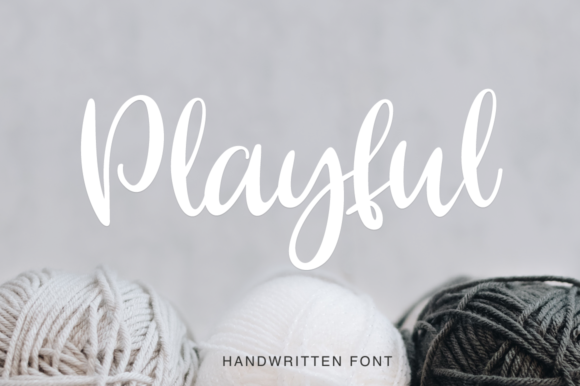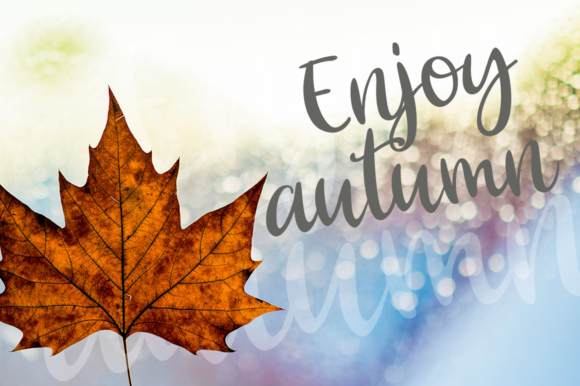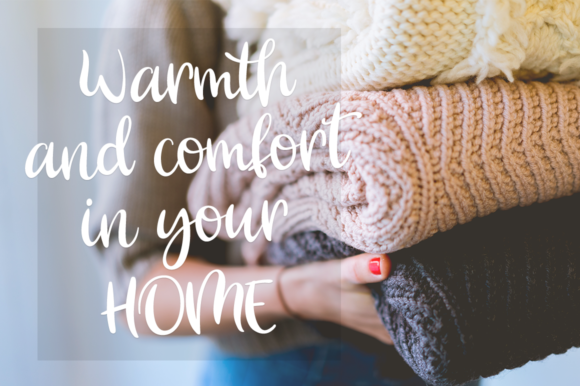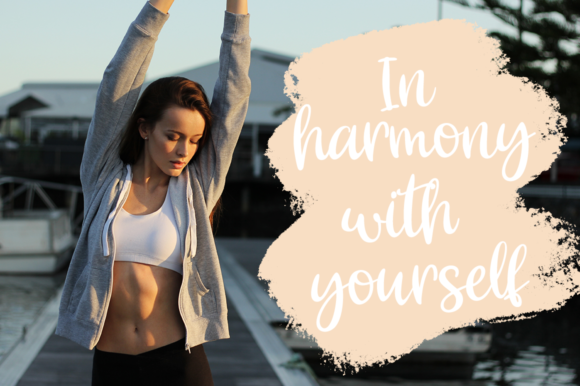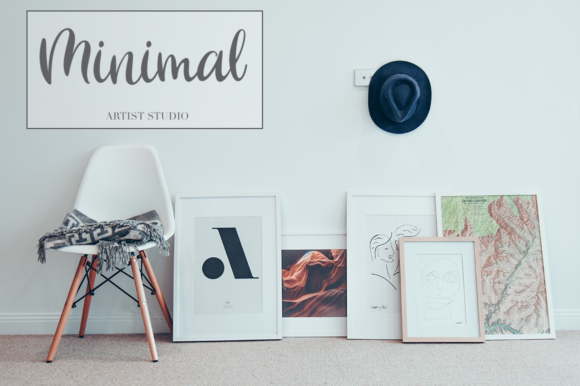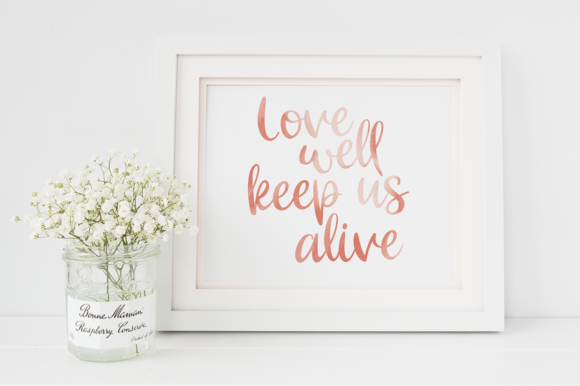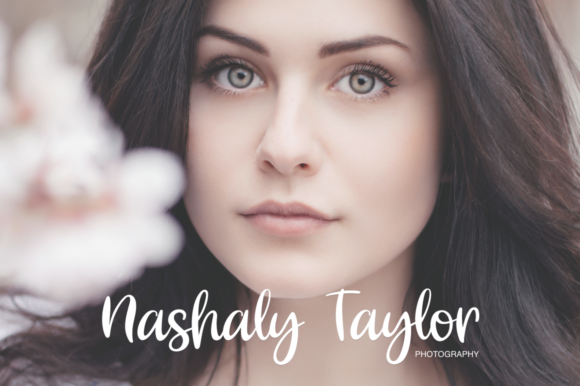
HomeScript FontsPlayful Font Script Fonts Playful Font FacebookXPinterestWhatsApp Playful Font Poster 2 Playful Font Poster 3 Playful Font Poster 4 Playful Font Poster 5 Playful Font Poster 6 Playful Font Poster 7 About Playful Font The Playful is a new, fresh, handmade font. It’s ideal for branding and decorating your projects. DOWNLOAD NOW People also explored Abdebaja Font Evil Witch Font Qulizer Font Bravest Font Corbeau Pro Purefly Font Snowy Font Ballada Font Neonllimitted Font 259 0 TagsPlayful Font Previous articleBridgetown FontNext articleLilypaly Font LEAVE A REPLY Cancel reply Comment: Please enter your comment! Name:* Please enter your name here Email:* You have entered an incorrect email address! Please enter your email address here Website: Save my name, email, and website in this browser for the next time I comment. Personal Use Free Lumber Personal Use Free Read more about this font Bruttney Personal Use Free Read more about this font Austins Personal Use Free Read more about this font Sweet Someday Personal Use Free Read more about this font BLOG Best Fonts for YouTube Videos: Make Your Thumbnails Stand Out Best Fonts for YouTube Videos: Make Your Thumbnails Stand Out Choosing the right font can make a massive difference in how your YouTube videos perform.... Exploring Font Trends How to Install and Use Fonts on Windows, macOS, and Web Projects Elegant Wedding Invitation Fonts – Handwritten & Script Fonts